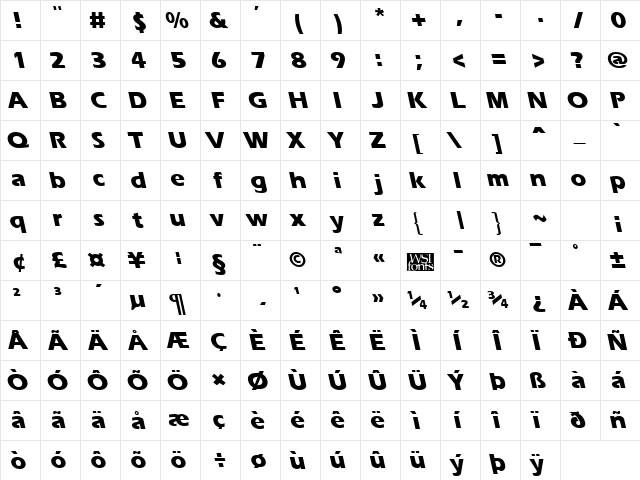
ErgoeExtraboldBS Regular
Design Context for ErgoeExtraboldBS Typeface
ErgoeExtraboldBS is a composed and adaptable typeface that performs quietly and consistently across a wide range of design contexts. Its bold stroke weight gives it real presence on the page.
Pro Tip: Use ErgoeExtraboldBS in both headline and body roles to test its range before committing to a single application.